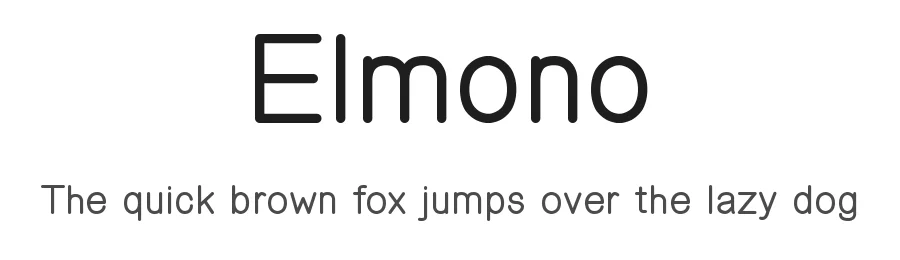
About Elmono Pro Font
| Designer | ari budi setiawan |
Elmono Pro Font is a versatile sans-serif font that works for both headings and body text. Pair it with a contrasting serif or slab serif font to add visual interest and a clear distinction between titles and body copy.
Elmono Pro Font